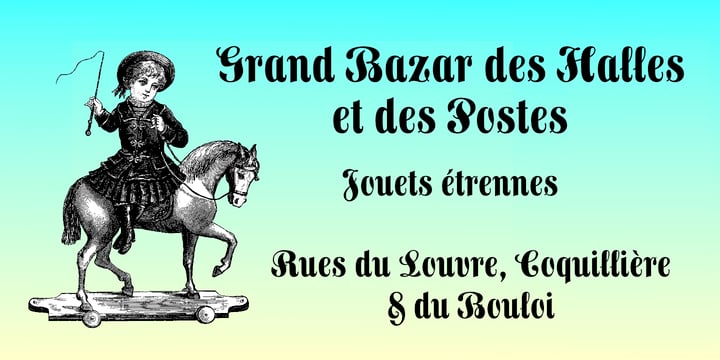
Frankenberg Pro™
by RMU
The Frankenberg Pro Font Family was designed by Ralph M. Unger and published by RMU. Frankenberg Pro contains 1 styles.
A treasure trove of typographic rarity, found in an old print shop in the Saxon town of Frankenberg, now revived and carefully extended.
Designers: Ralph M. Unger
Publisher: RMU
Foundry: RMU
Original Foundry: RMU
Design Owner: RMU